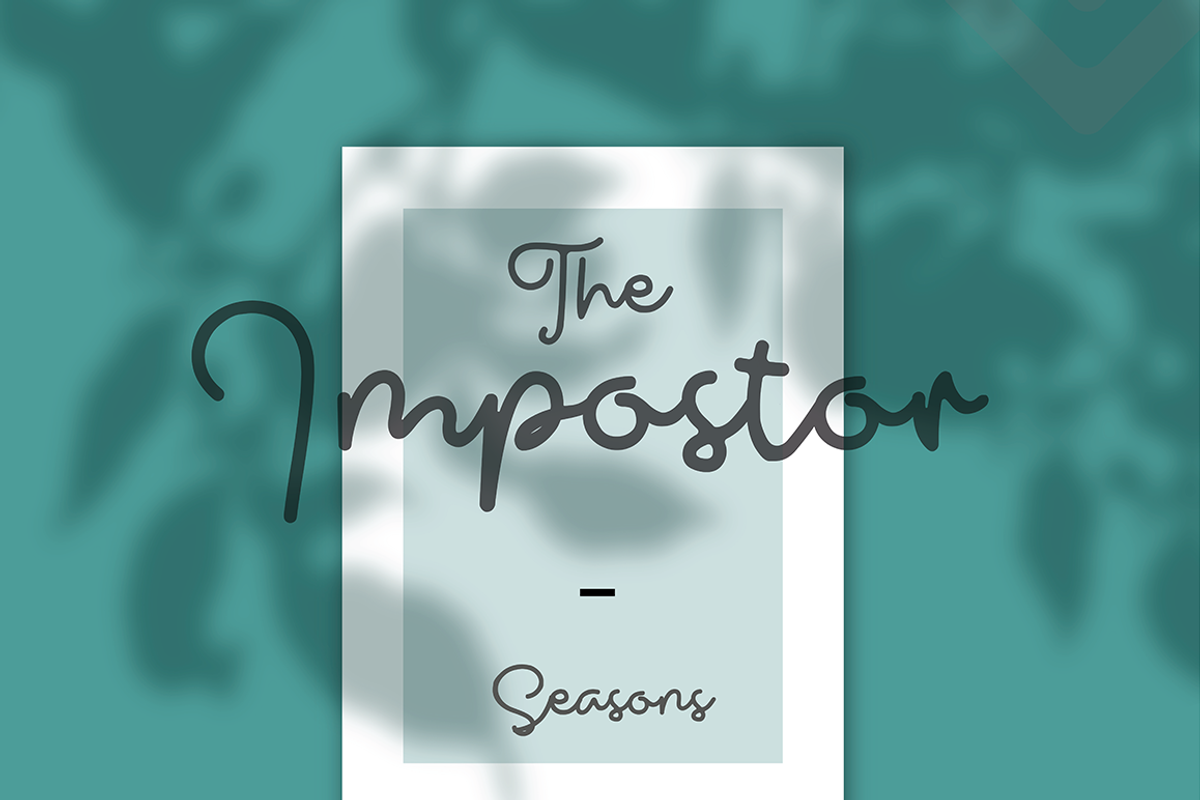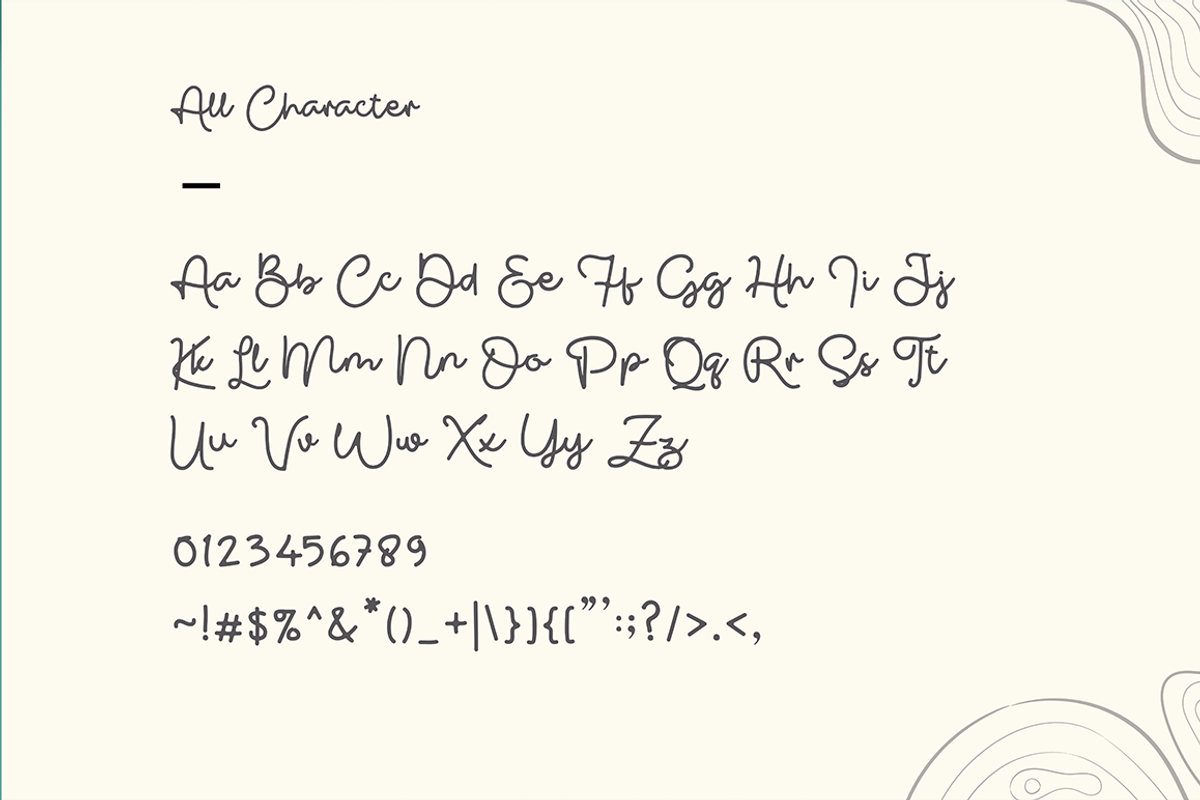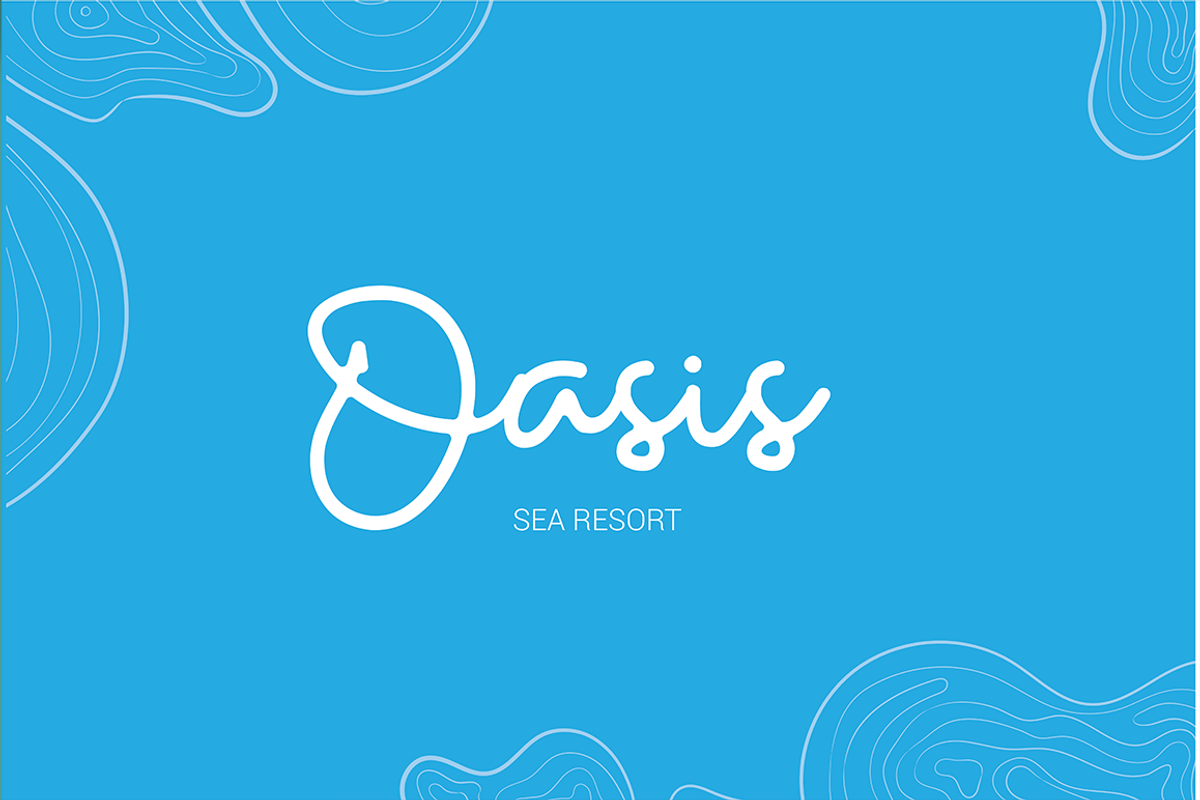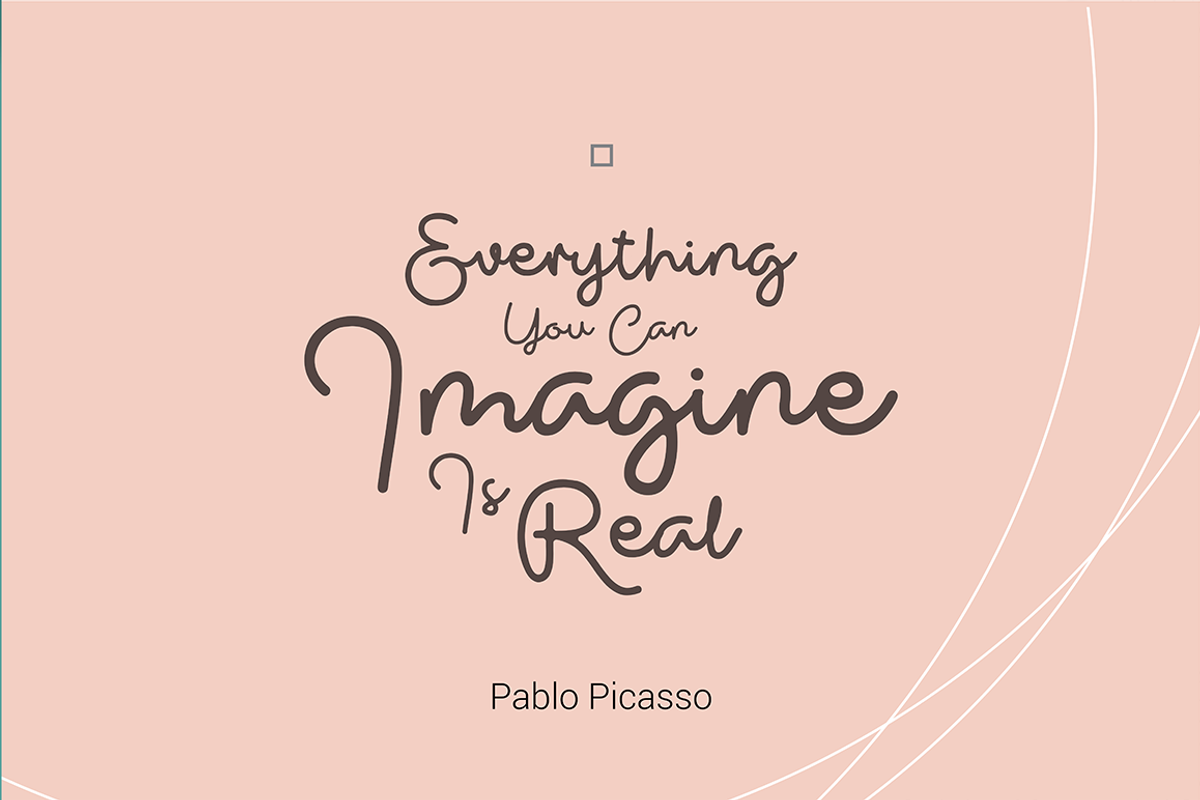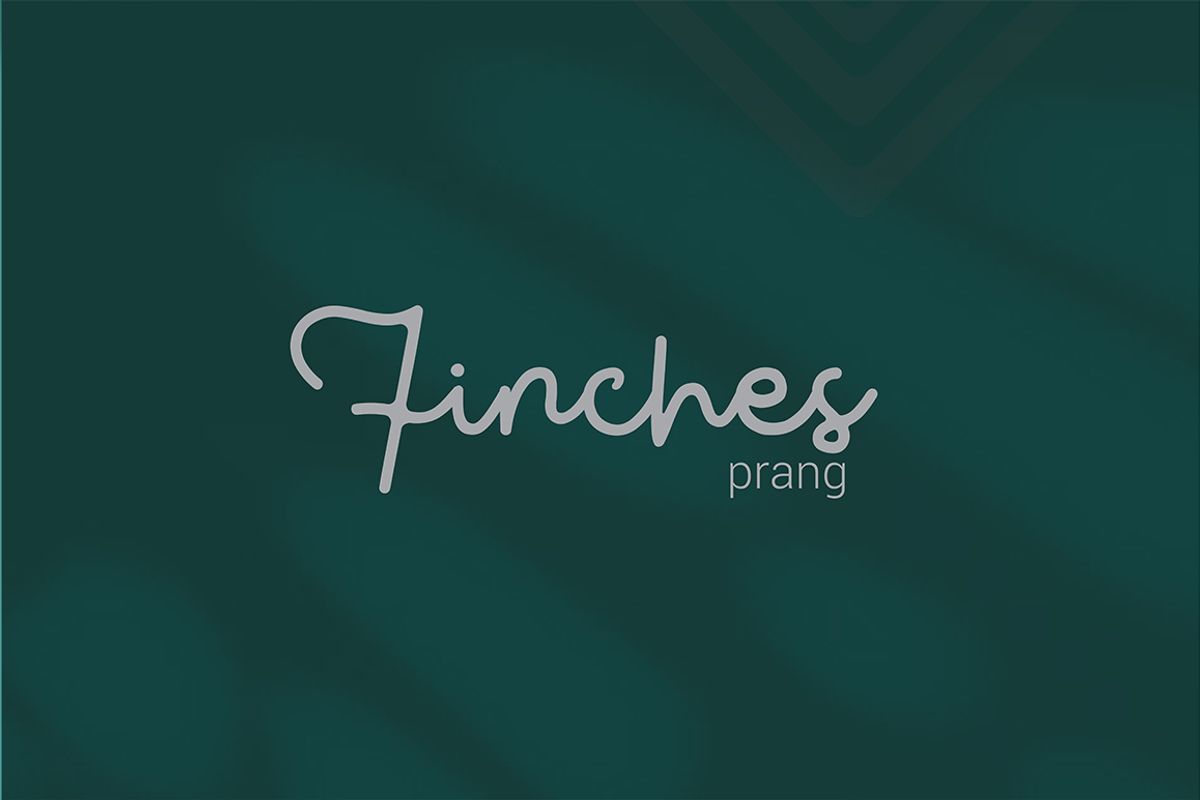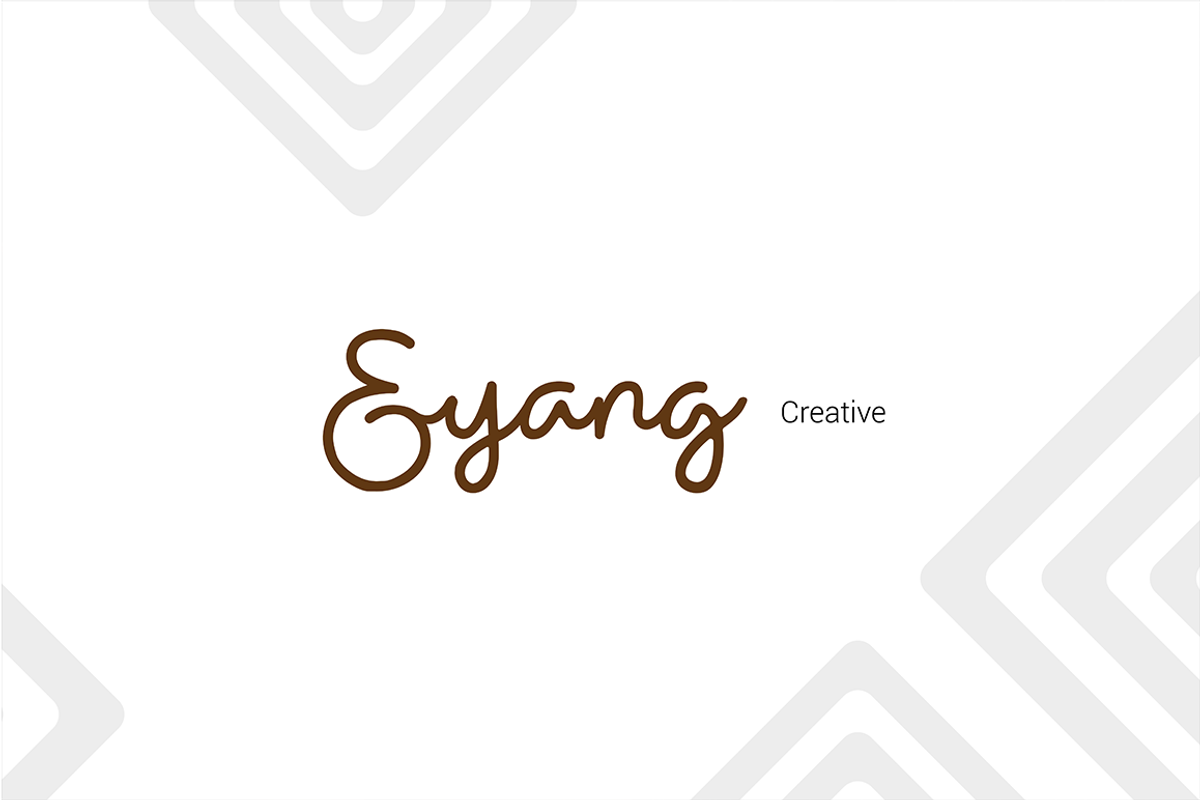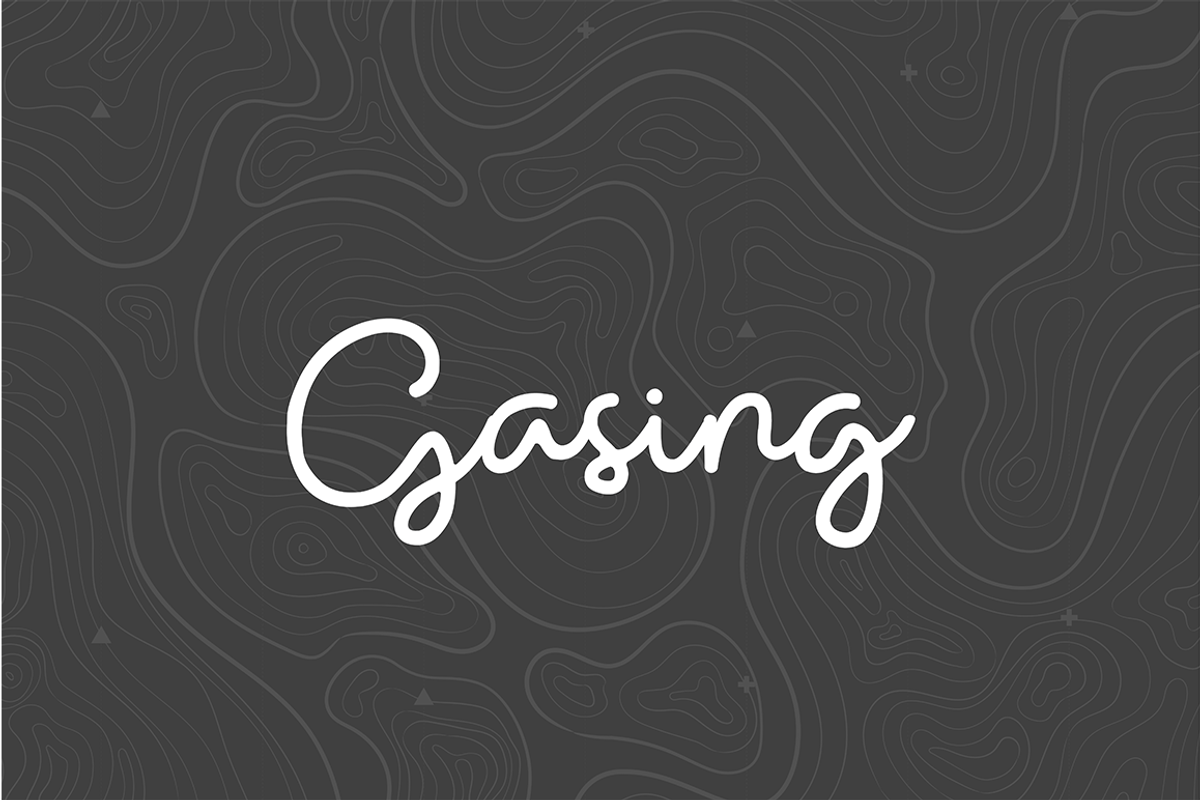
Gasing Monoline Script Font
Gasing is very well written and very clear handwriting font, The glyph are monoline and very carefully crafted. This font has uppercase and lowercase letter.